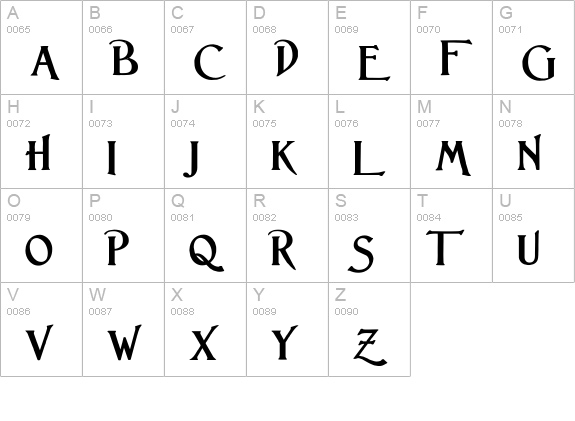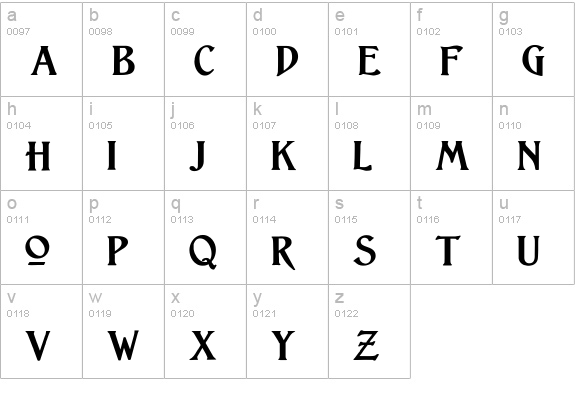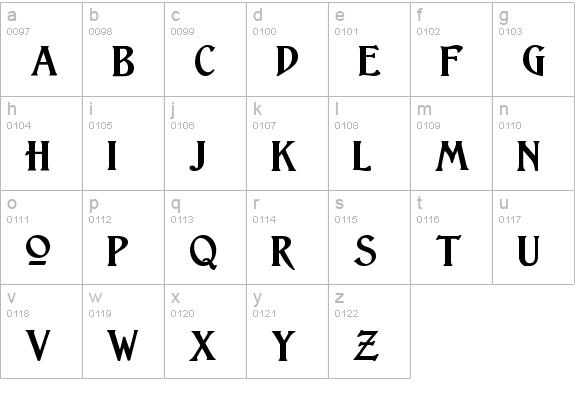
Lightfoot Bold Font Details
Lightfoot Bold is a strong, high-contrast variant in the Lightfoot typeface family \xE2\x80\x94 well suited to headlines, attention-grabbing titles, and strong calls-to-action.
Lightfoot Bold is a modern and versatile typeface that exudes confidence and elegance. With its bold strokes and clean lines, this font is perfect for making a statement in headlines, titles, and branding materials. The strong presence of Lightfoot Bold commands attention while maintaining a sense of sophistication. What makes Lightfoot Bold even more appealing is that it is available for free download at FontsMarket.com. This means that you can easily access and use this striking font in your projects without any cost. Whether you're designing a logo, creating posters, or crafting social media graphics, Lightfoot Bold is sure to elevate your work with its bold and impactful presence. Add a touch of class and professionalism to your designs with Lightfoot Bold, the free font that speaks volumes.